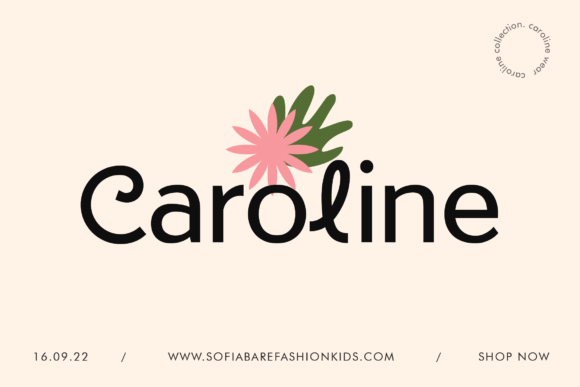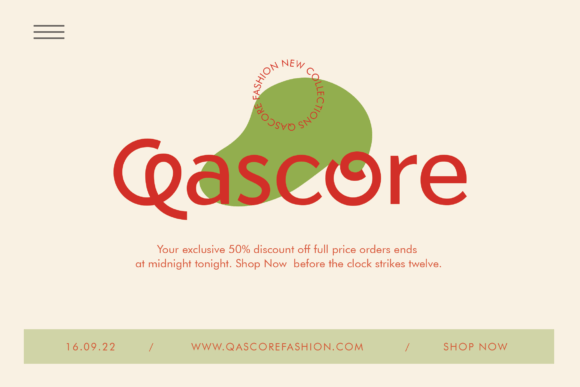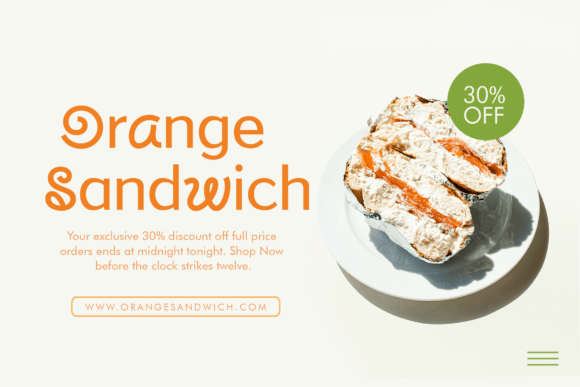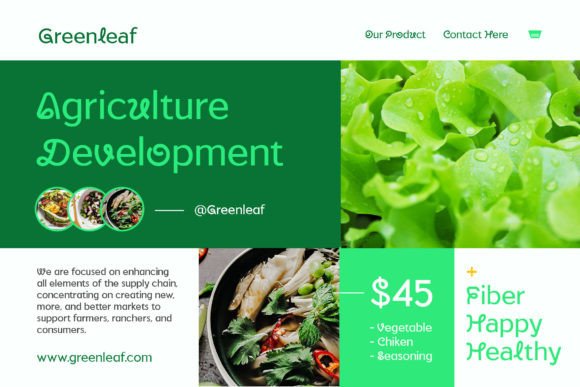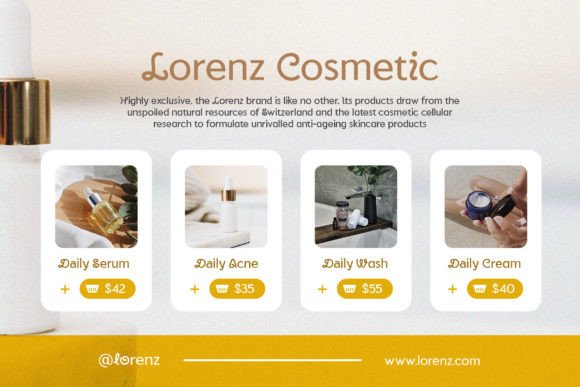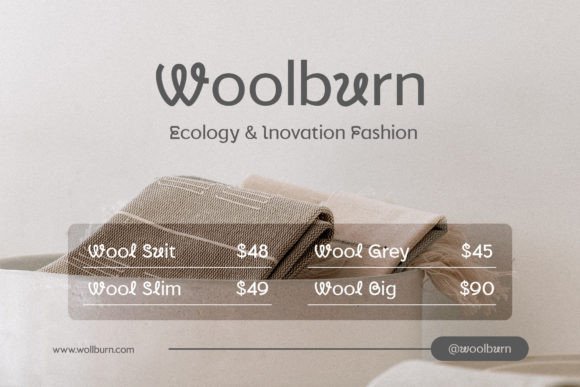
Introduction to Quality Sunrise Font Font
Fonts play a crucial role in design, and the Quality Sunrise Font font is a typeface that brings both character and versatility to any project. Whether you’re working on a branding project, a website, or a print design, the Quality Sunrise Font font offers a unique style that can elevate your work.
Quality Sunrise – Modern Loopy Sans Serif Font – Fun Playful Logo Display Font Quality Sunrise is perfect for your upcoming projects such as logo branding, editorial design, stationery design, fun game design, unique techno/gadget brand, digital music poster, apps startup design, modern advertising design, art quote, home decor, book/cover title, special events, and more.
Quality Sunrise – Modern Loopy Sans Serif Font – Fun Playful Logo Display Font Quality Sunrise is perfect for your upcoming projects such as logo branding, editorial design, stationery design, fun gam
Key Features of Quality Sunrise Font Font
Why Choose Quality Sunrise Font Font?
The Quality Sunrise Font font is more than just a typeface – it’s a design tool that helps you communicate your message with style and clarity. Its unique character set and versatile design make it suitable for a wide range of applications, from elegant invitations to bold headlines.
With its carefully crafted letterforms and balanced proportions, the Quality Sunrise Font font ensures readability and visual appeal across all mediums.
What makes Quality Sunrise Font font special?
The Quality Sunrise Font font stands out with its unique design, exceptional readability, and versatility across various design applications.